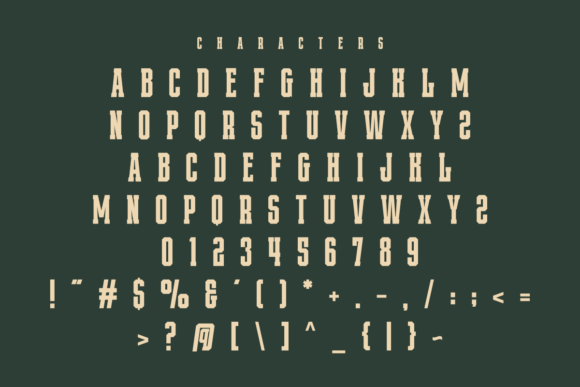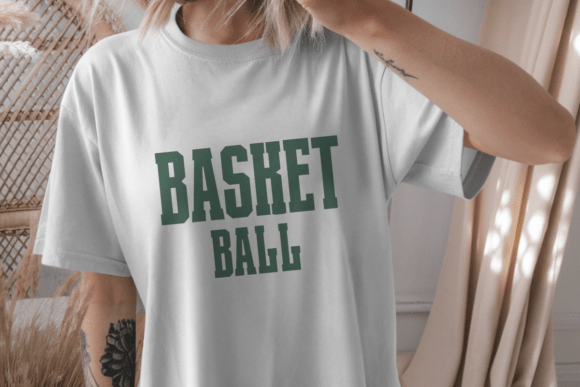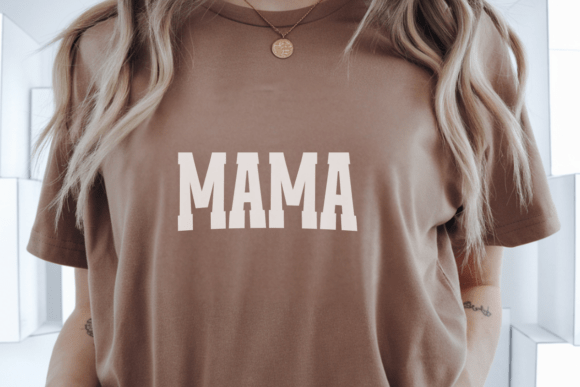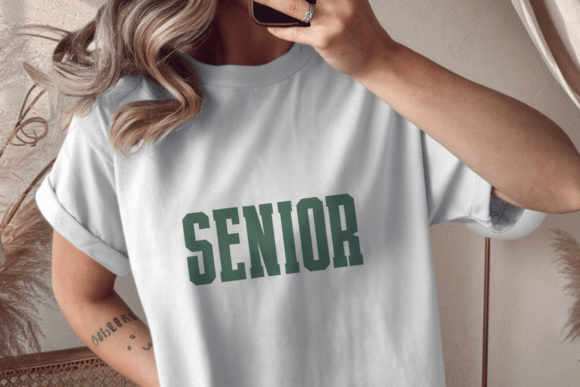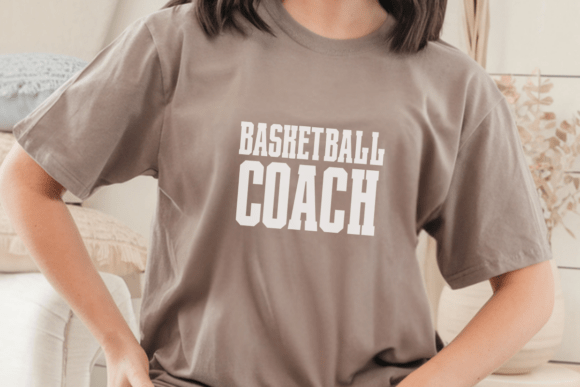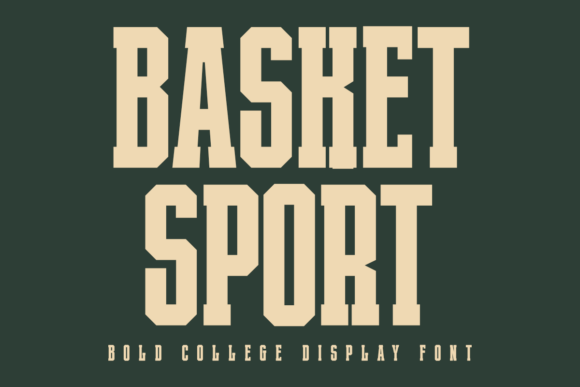
Basket Sport Font: Elevate Your Sports-Themed Designs with a Bold Collegiate Style
In the world of graphic design, typography plays a crucial role in conveying the tone and personality of a brand or project. For designers, crafters, and Print on Demand (POD) sellers looking to create high-impact sports-themed designs, the right font can make all the difference. This is where the Basket Sport font comes in – a bold college display font meticulously designed to bring a powerful, athletic aesthetic to your creative projects.
A Strong, Blocky Structure with Classic Collegiate Details
Basket Sport features a strong, blocky structure with classic collegiate slab-serif details, making it the ultimate choice for creating varsity-style team logos, sports jerseys, and spirited fan merchandise. Its bold design ensures excellent readability, even at larger font sizes, making it perfect for creating high-impact t-shirt designs, school spirit posters, and personalized gifts.
The Ultimate Choice for Graphic Designers, Crafters, and POD Sellers
Whether you are a graphic designer looking to elevate your professional portfolio, a crafter working with a Cricut or Silhouette, or a POD seller aiming to create trendy sports-themed products, Basket Sport is the perfect addition to your design toolkit. Its clean, sharp edges ensure smooth cutting for vinyl projects and a crisp professional finish for digital printing.
Key Features of Basket Sport Font
• Bold and Athletic Aesthetic: Basket Sport boasts a powerful, athletic look that’s perfect for sports-themed designs.
• Classic Collegiate Details: The font features classic collegiate slab-serif details, giving it a timeless sporting flair.
• Excellent Readability: Its bold design ensures excellent readability, even at larger font sizes.
• Clean and Sharp Edges: The font’s clean, sharp edges make it ideal for vinyl projects and digital printing.
• Versatile: Basket Sport is suitable for a wide range of applications, from professional branding to school spirit posters and personalized gifts.
Applications of Basket Sport Font
Basket Sport is a versatile font that can be used in a variety of applications, including:
• T-Shirt Designs: Create high-impact t-shirt designs that are sure to turn heads.
• Varsity-Style Team Logos: Design varsity-style team logos that exude school spirit and athletic pride.
• Sports Jerseys: Create authentic-looking sports jerseys with Basket Sport’s bold, athletic aesthetic.
• Fan Merchandise: Design spirited fan merchandise, such as posters, stickers, and buttons.
• Professional Branding: Elevate your professional brand identity with Basket Sport’s commanding presence.
• School Spirit Posters: Create eye-catching school spirit posters that showcase your school’s personality.
• Personalized Gifts: Design personalized gifts, such as customized water bottles, phone cases, and more.
Why Choose Basket Sport Font?
In a world where typography plays a crucial role in design, Basket Sport font stands out as a bold and athletic choice for sports-themed designs. Its classic collegiate details, excellent readability, and clean, sharp edges make it the ultimate choice for graphic designers, crafters, and POD sellers. By incorporating Basket Sport into your design toolkit, you’ll be able to:
• Elevate Your Designs: Add a powerful, athletic aesthetic to your designs.
• Save Time: Use a versatile font that can be applied to a wide range of projects.
• Enhance Your Brand Identity: Create a consistent and professional brand image.
In conclusion, Basket Sport font is an essential asset for any sports-themed design toolkit. Its bold, athletic aesthetic, classic collegiate details, and excellent readability make it the perfect choice for creating high-impact designs. Whether you’re a graphic designer, crafter, or POD seller, Basket Sport is sure to elevate your designs and enhance your professional portfolio.